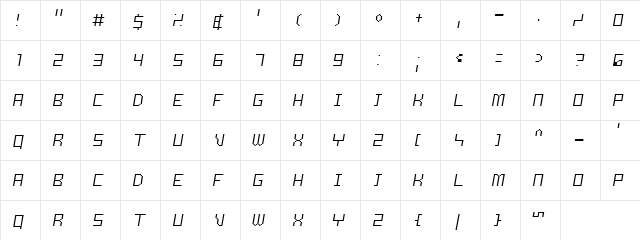
Samson Light Oblique Regular
Design Context for Samson Light Oblique Typeface
Samson Light Oblique offers clean, dependable letterforms without strong stylistic allegiance, making it a practical choice for designers who need flexibility. The dynamic lean of this cut emphasises speed and emphasis in any layout. The delicate stroke weight brings airiness and refinement to layouts.
Pro Tip: Use Samson Light Oblique for emphasis, pull quotes, and subheadings where its slanted energy can add rhythm to the layout.